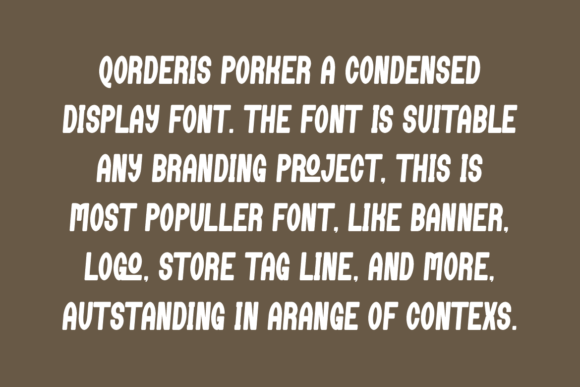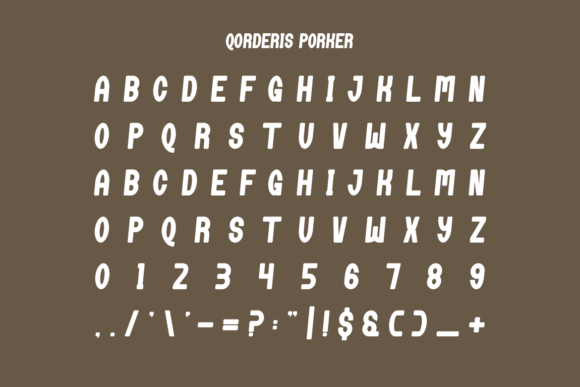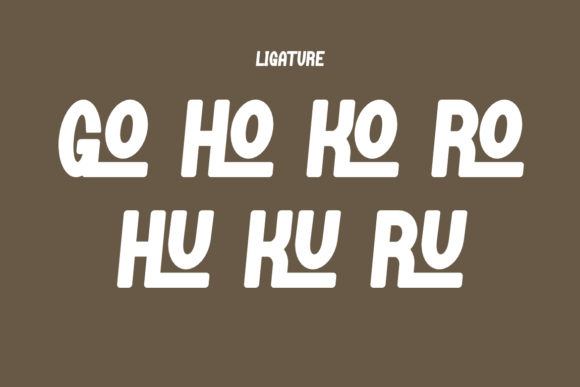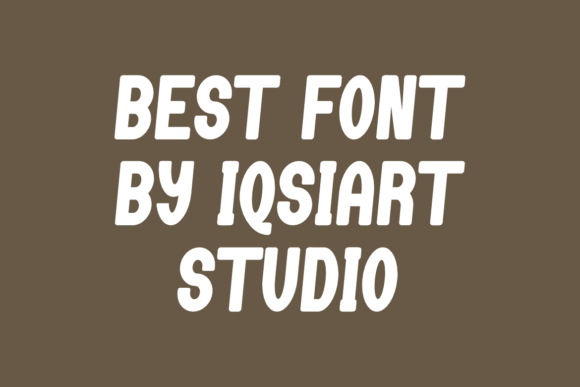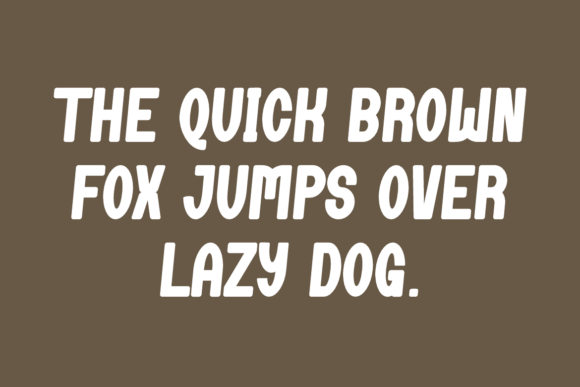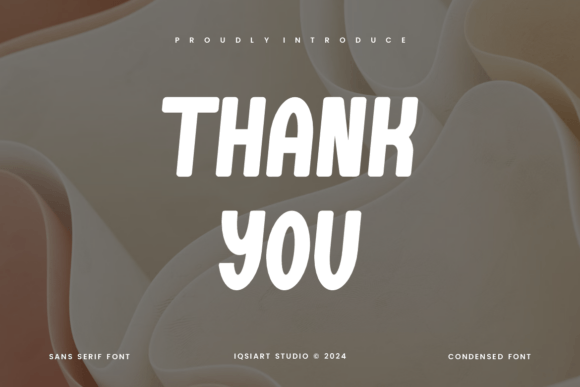
Introduction to Qorderis Porker Font
Qorderis Porker is a best and most authentic display font.
This font can be used for your various needs We provide various themes and font styles.
Key Features of Qorderis Porker Font
Why Choose Qorderis Porker Font?
Qorderis Porker Font offers exceptional quality and versatility, making it a valuable addition to your design toolkit. Whether you’re creating for personal projects or commercial use, Qorderis Porker Font delivers professional results.